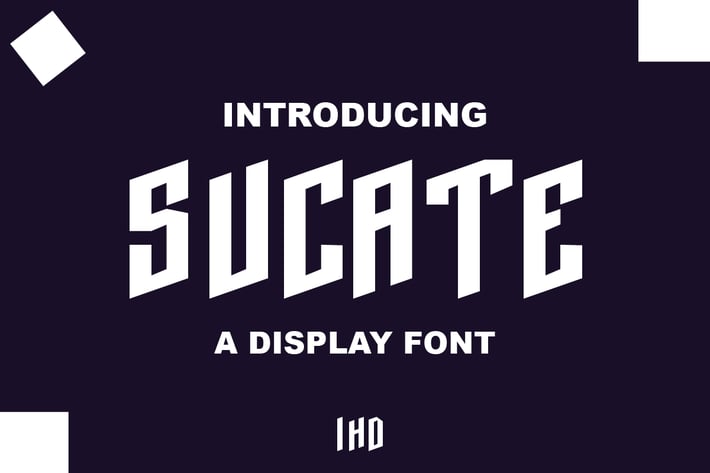
Sucate A Display Font
Sucate a Display font is our new item suitable for your Posters.
Great for Logo, Poster, Sticker, Jerseys, Invitation Card, Brochure, etc.